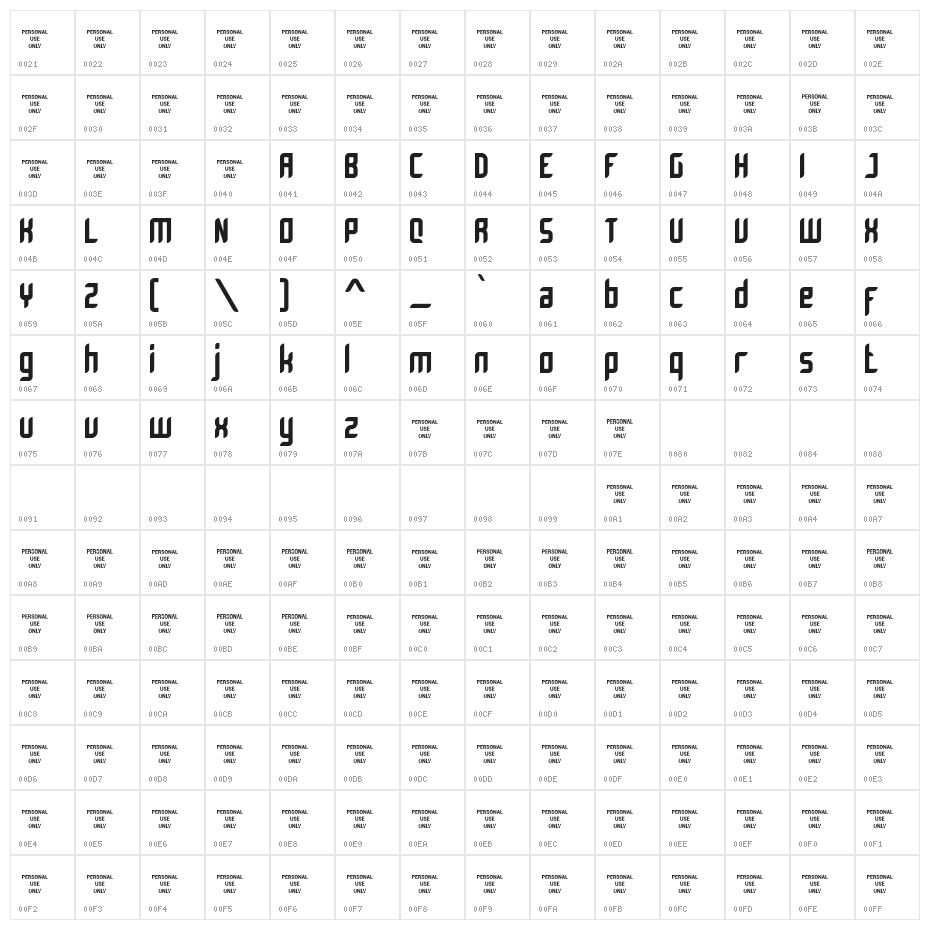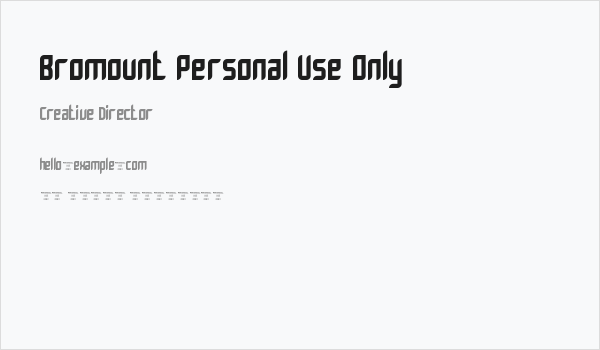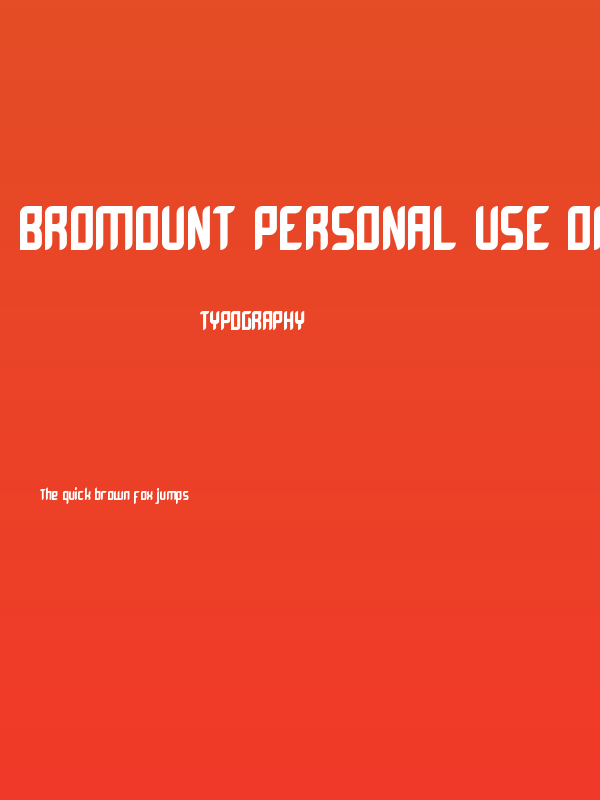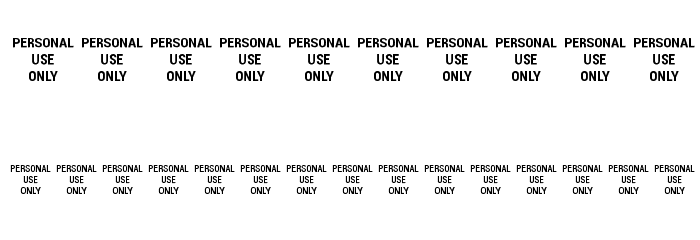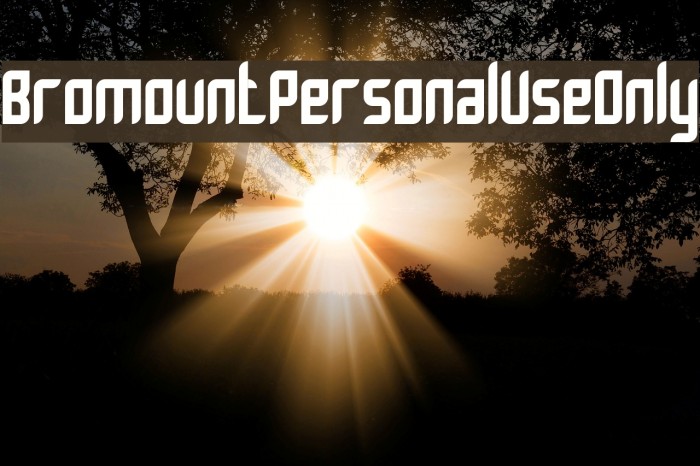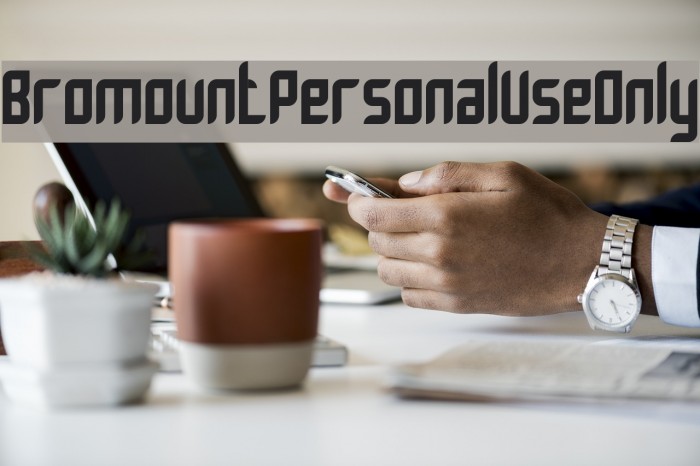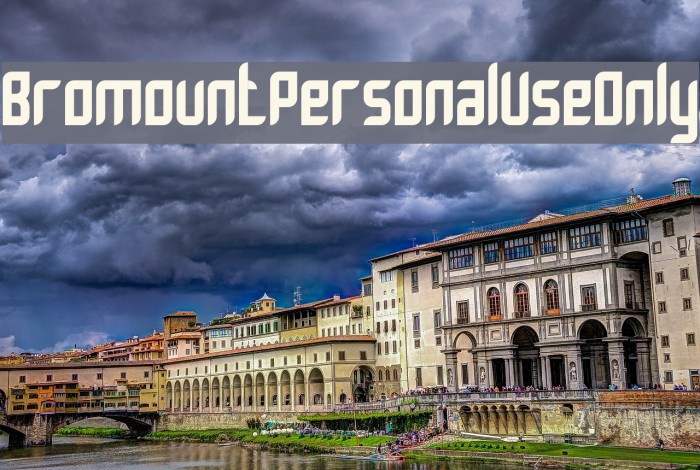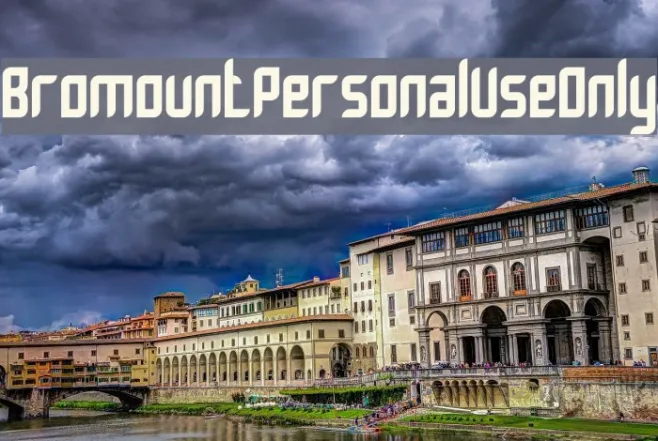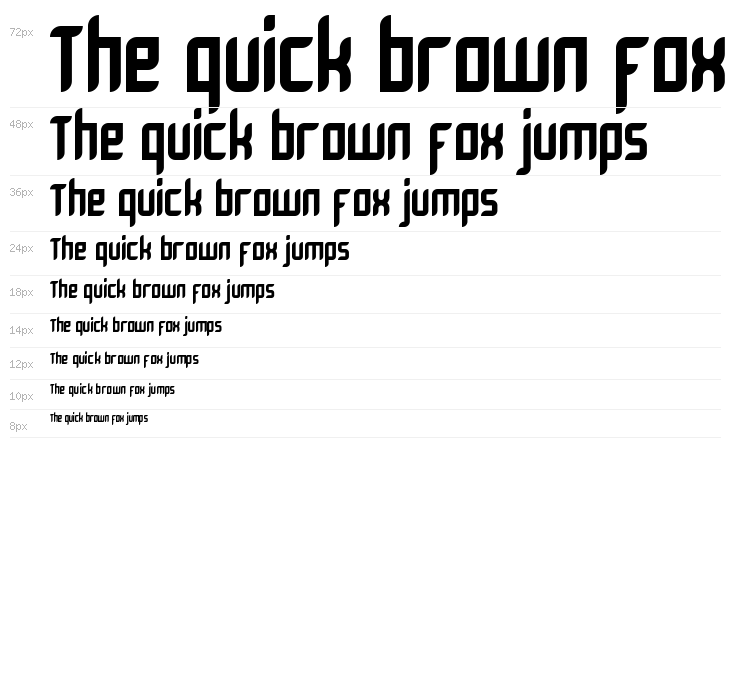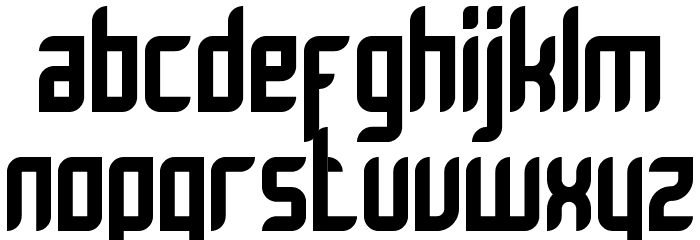
Bromount Personal Use Only Font
Bromount Personal Use Only Description
This font features a bold and modern design with a unique geometric structure. The characters are crafted with sharp angles and a consistent thickness, giving it a futuristic and tech-inspired appearance. The uppercase letters are particularly striking, with a strong presence that commands attention. The lowercase letters maintain the same angular style, ensuring a cohesive look across all text. The numbers and special characters are designed to match the overall aesthetic, making this font versatile for various applications. Its boldness and distinct style make it ideal for projects that require a contemporary and edgy look.
| Proposed Projects | Ideal for technology branding, futuristic posters, video game titles, and digital media. |